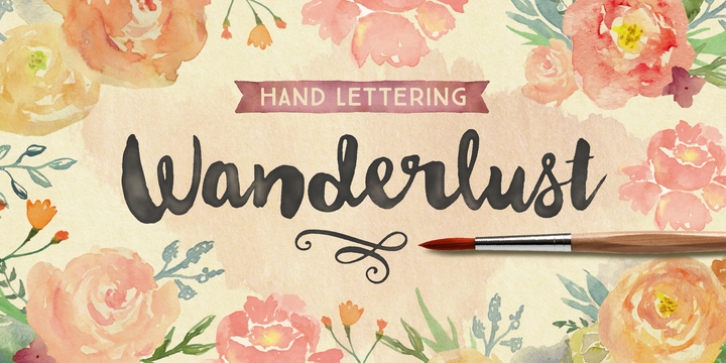
Publisher: Cultivated Mind
Wanderlust letters is a beautiful hand painted script that comes with a set of extras. All letters have been carefully painted giving your words a wonderful flow. Wanderlust can be used for fashion, apparel, stationery, magazines, film, books and marketing.